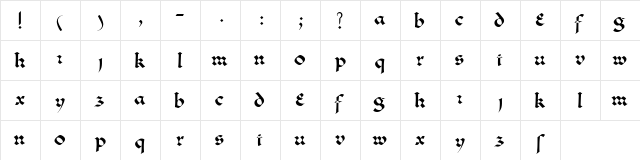
Lombardo-Beneventan Regular
Design Context for Lombardo-Beneventan Typeface
Lombardo-Beneventan is a composed and adaptable typeface that performs quietly and consistently across a wide range of design contexts.